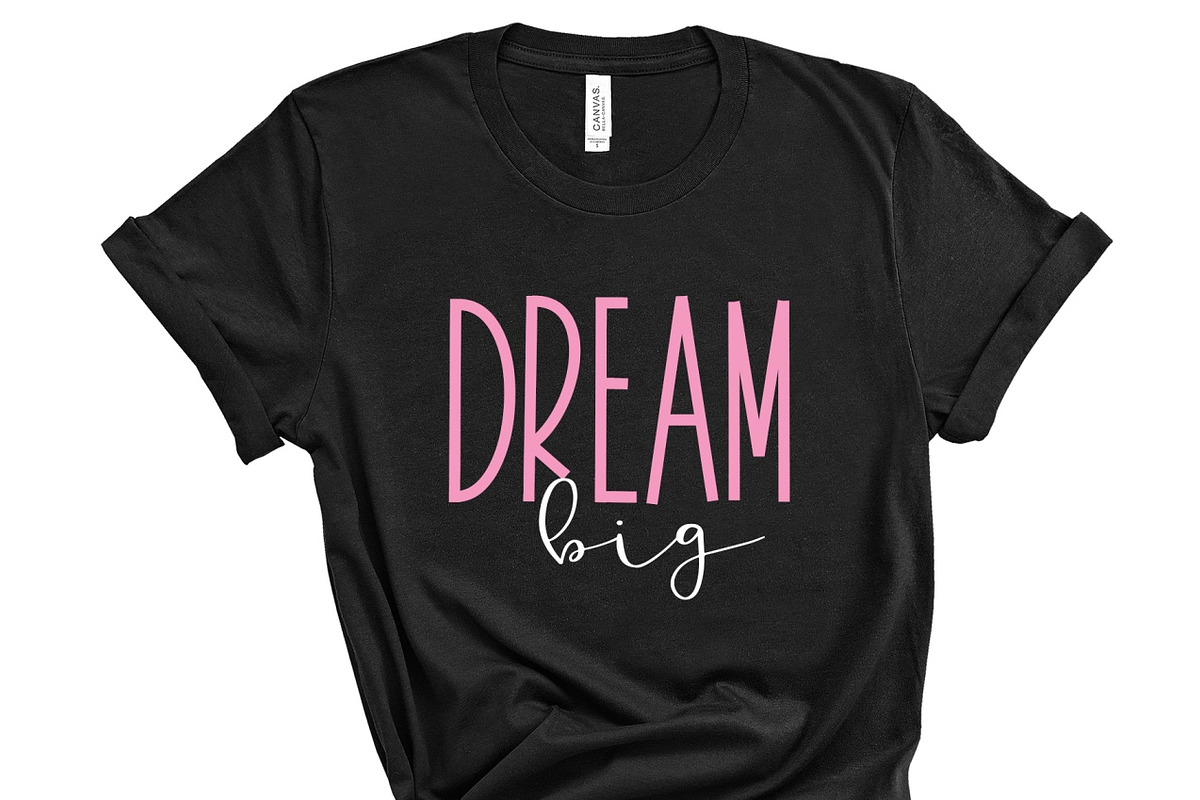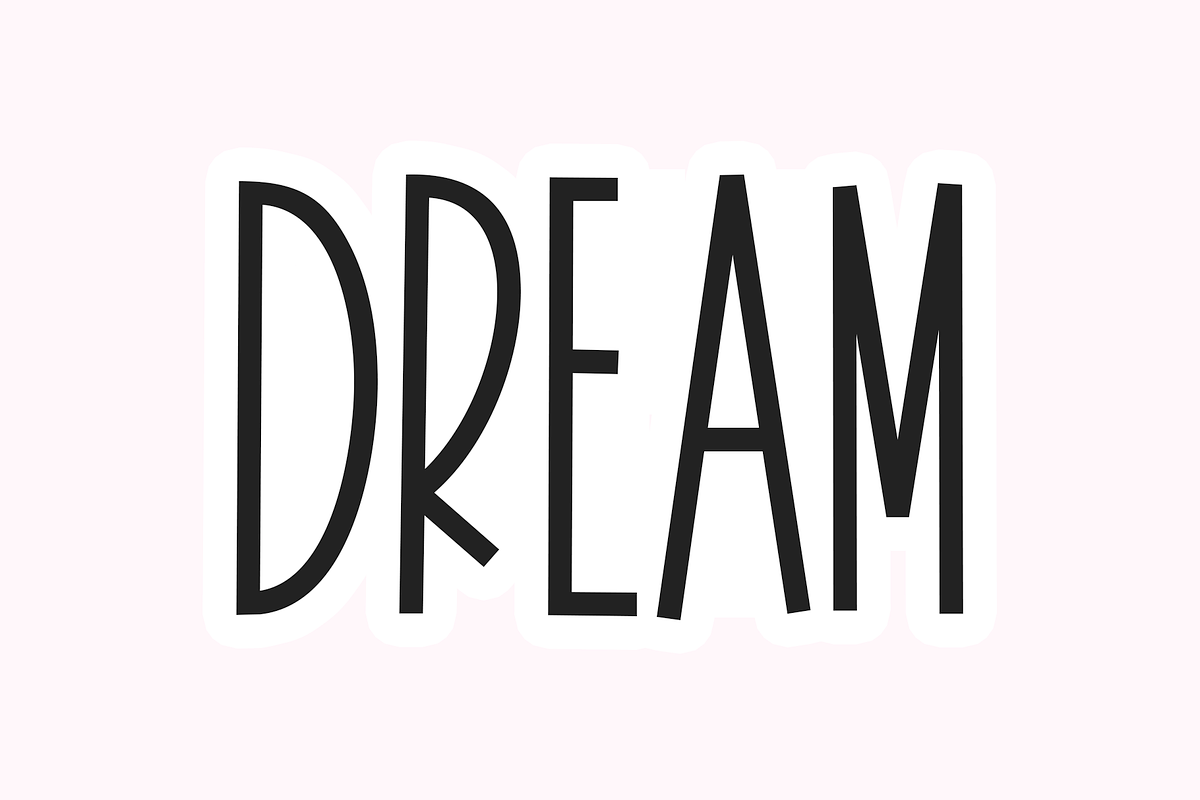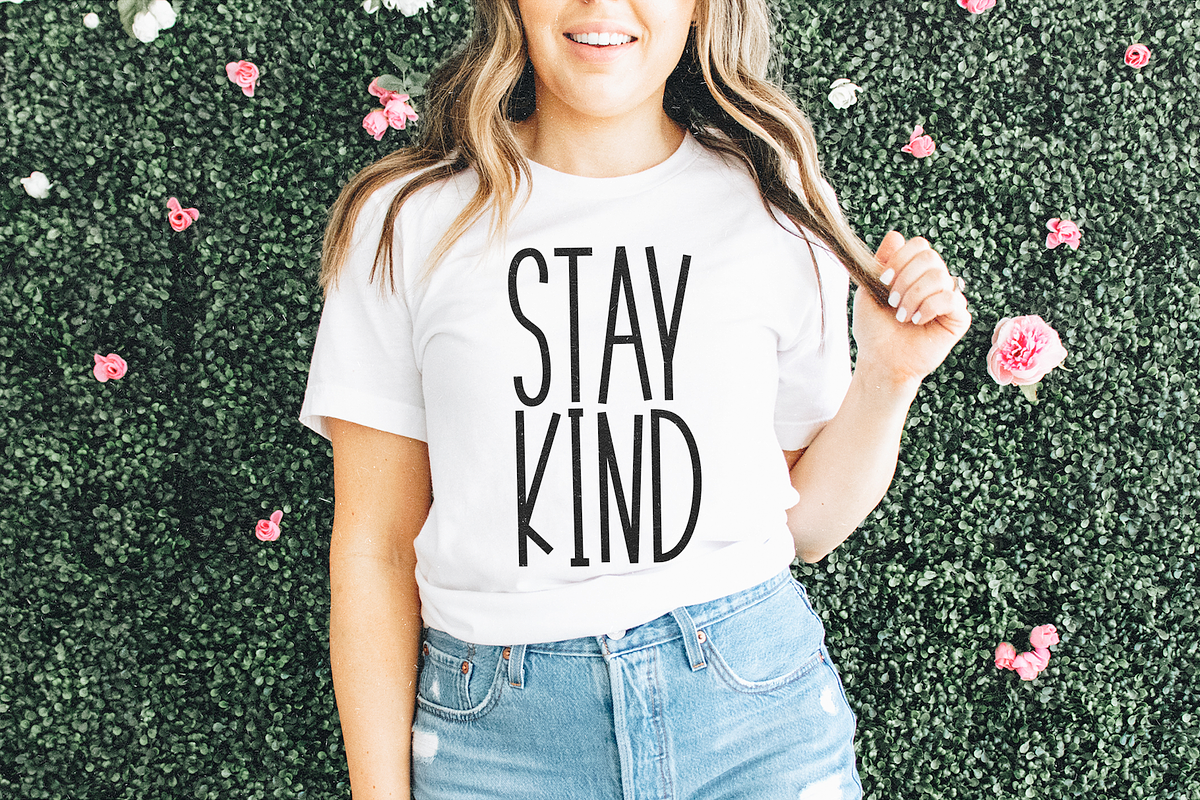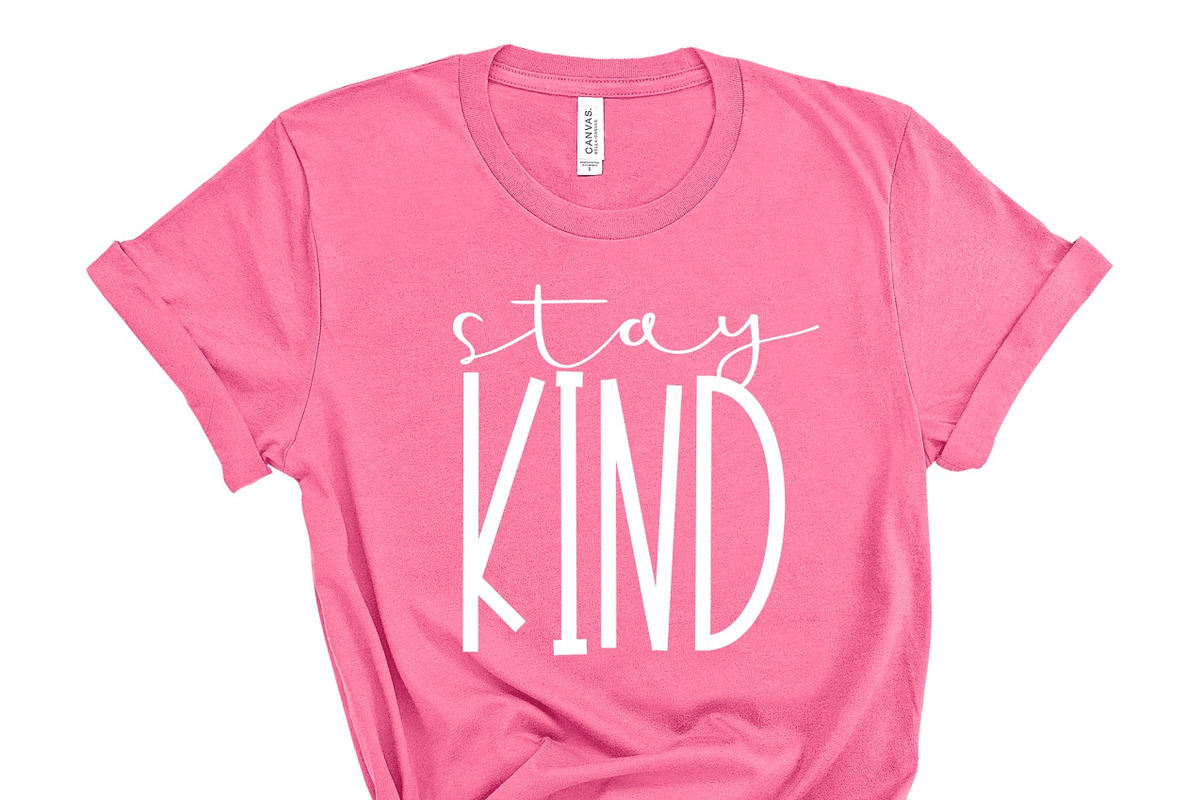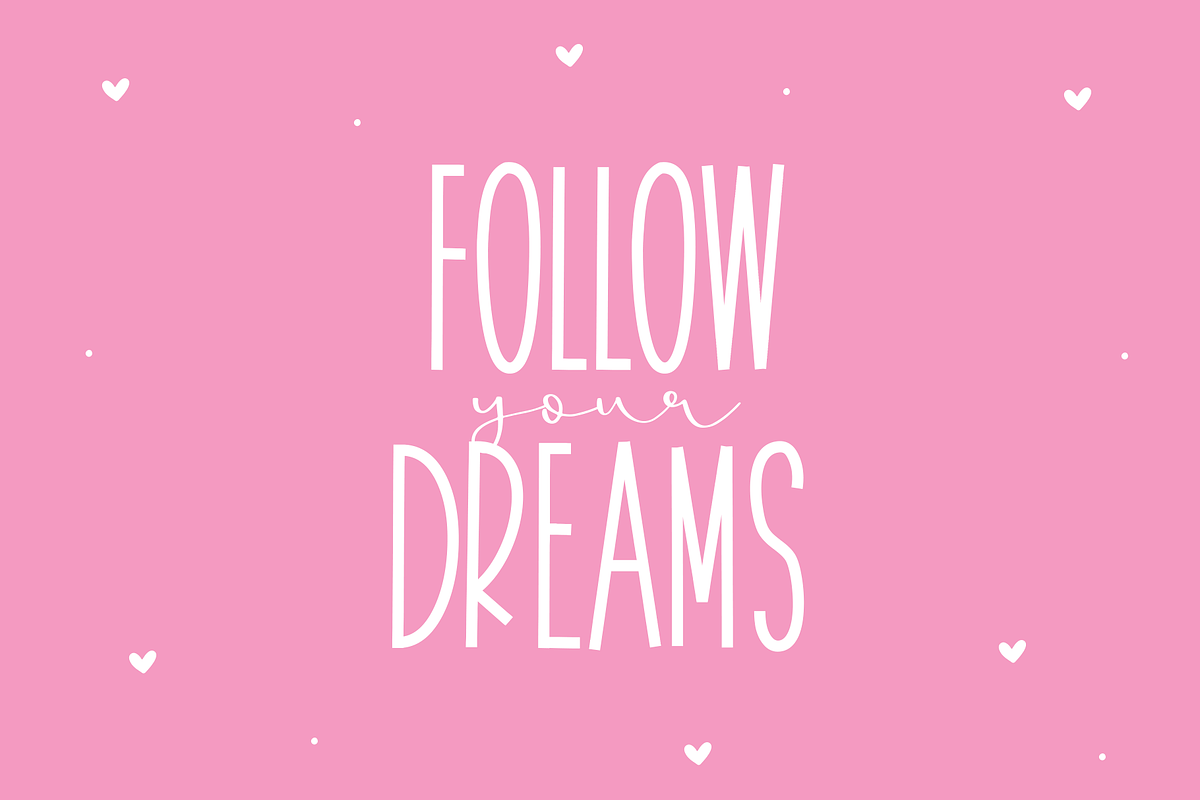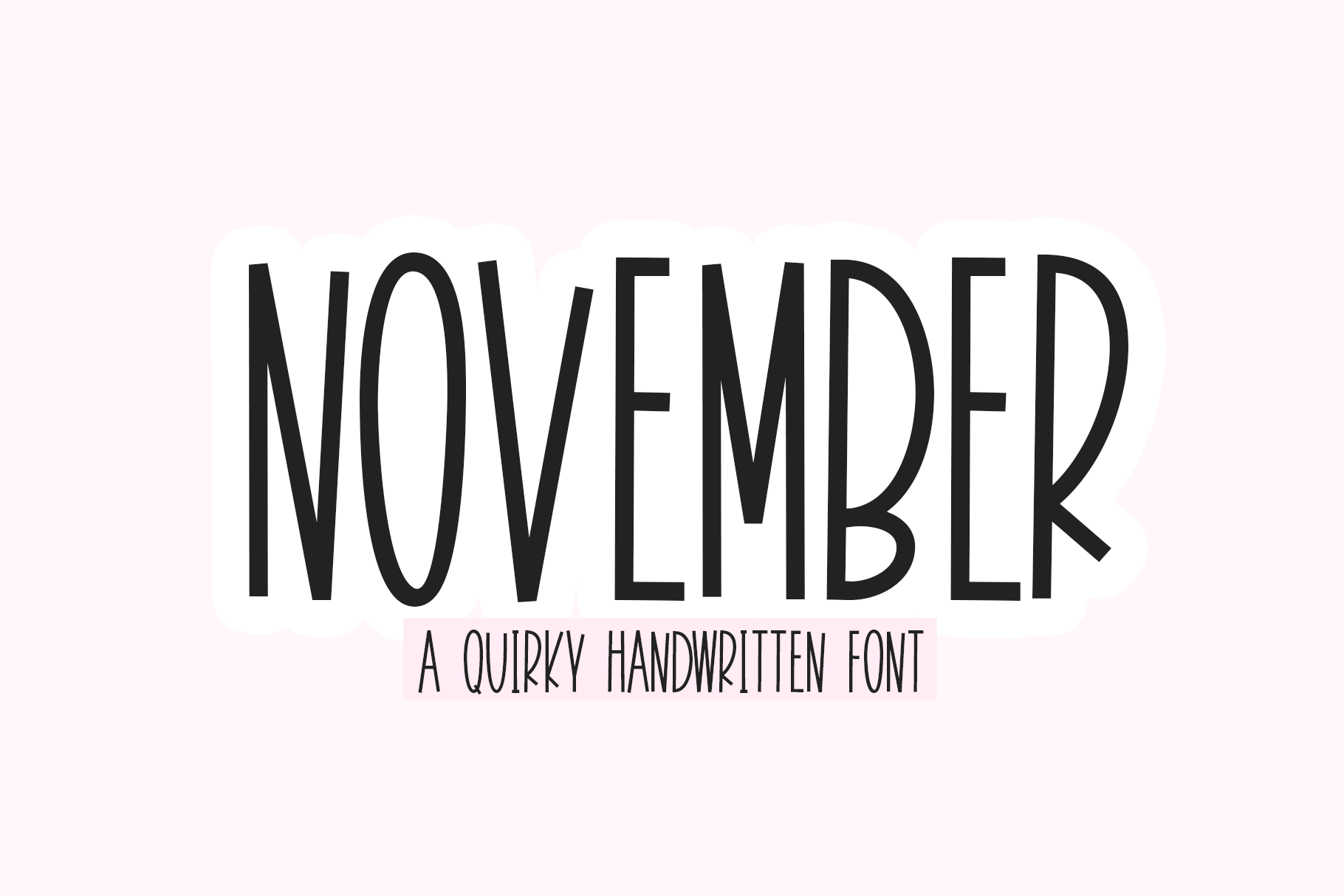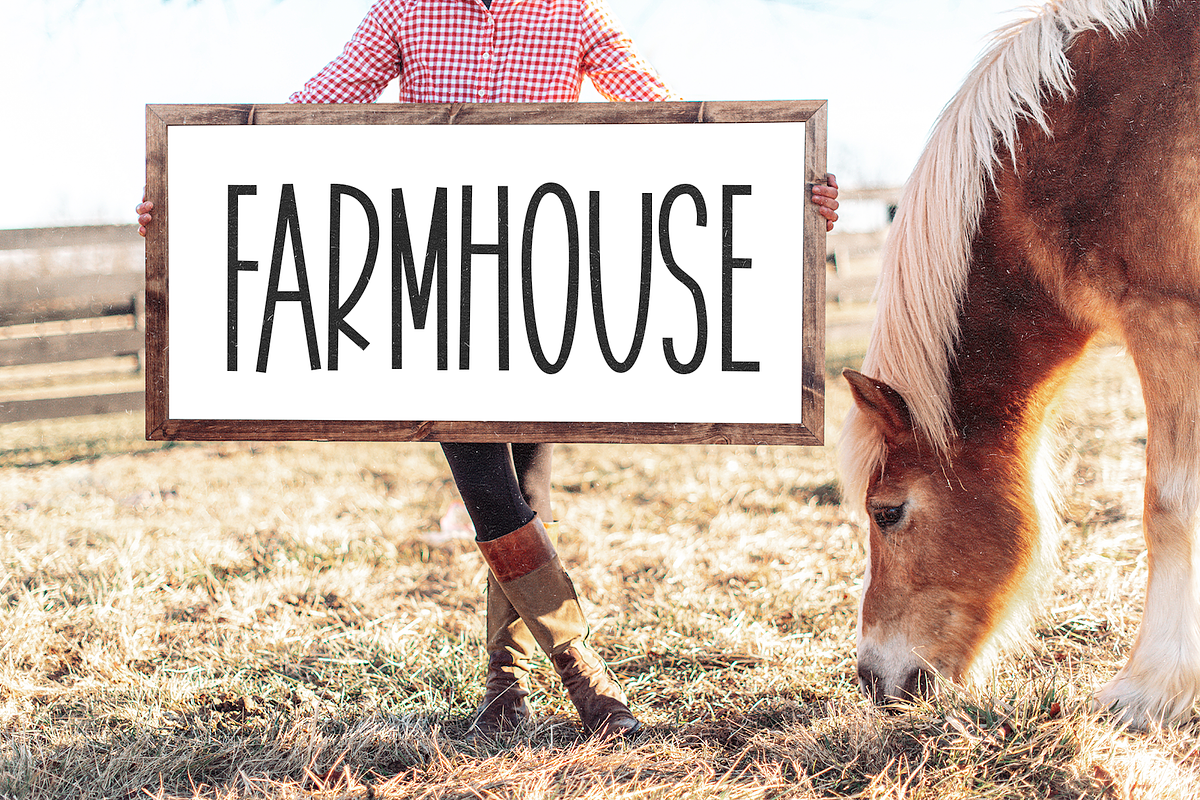
November | Fun Handwritten Font
November is a fun font with cute letters. The capital letters and lowercase letters are the same for this font.
This font is perfect for quotes, headings, blogs, logos, invitations and more!
This font does include accent characters.